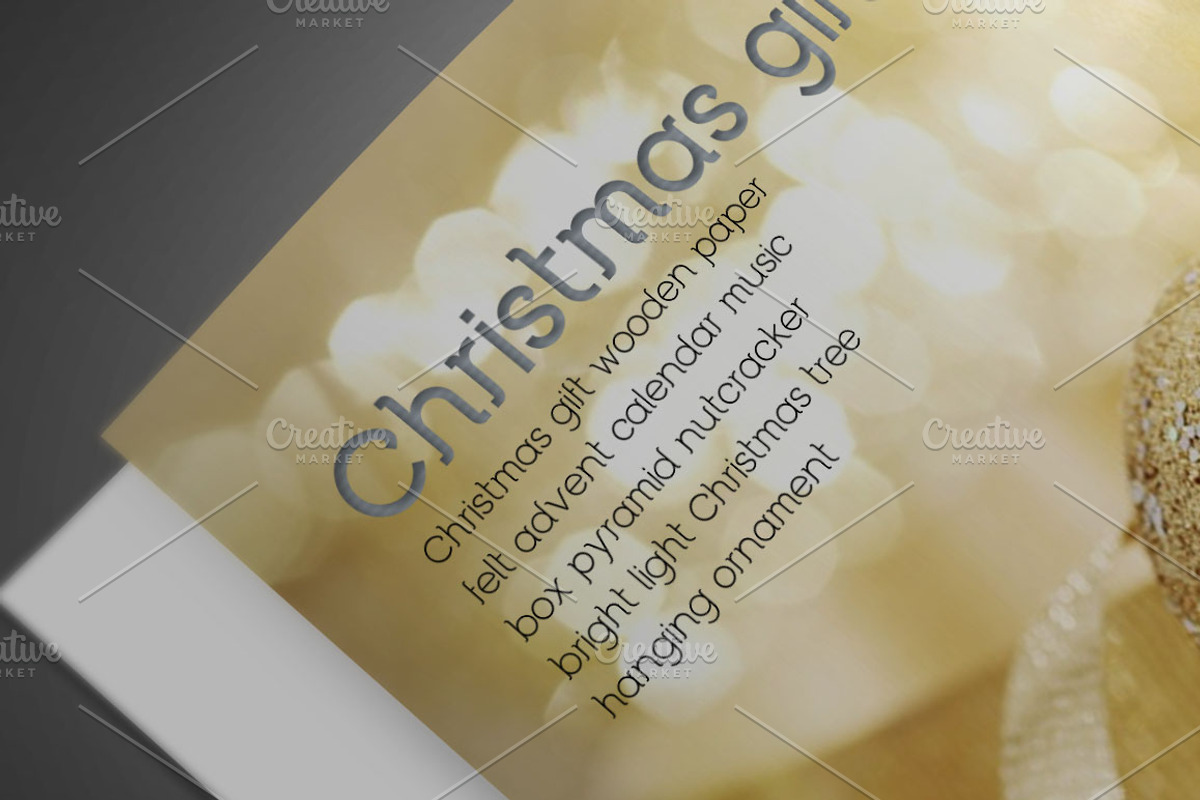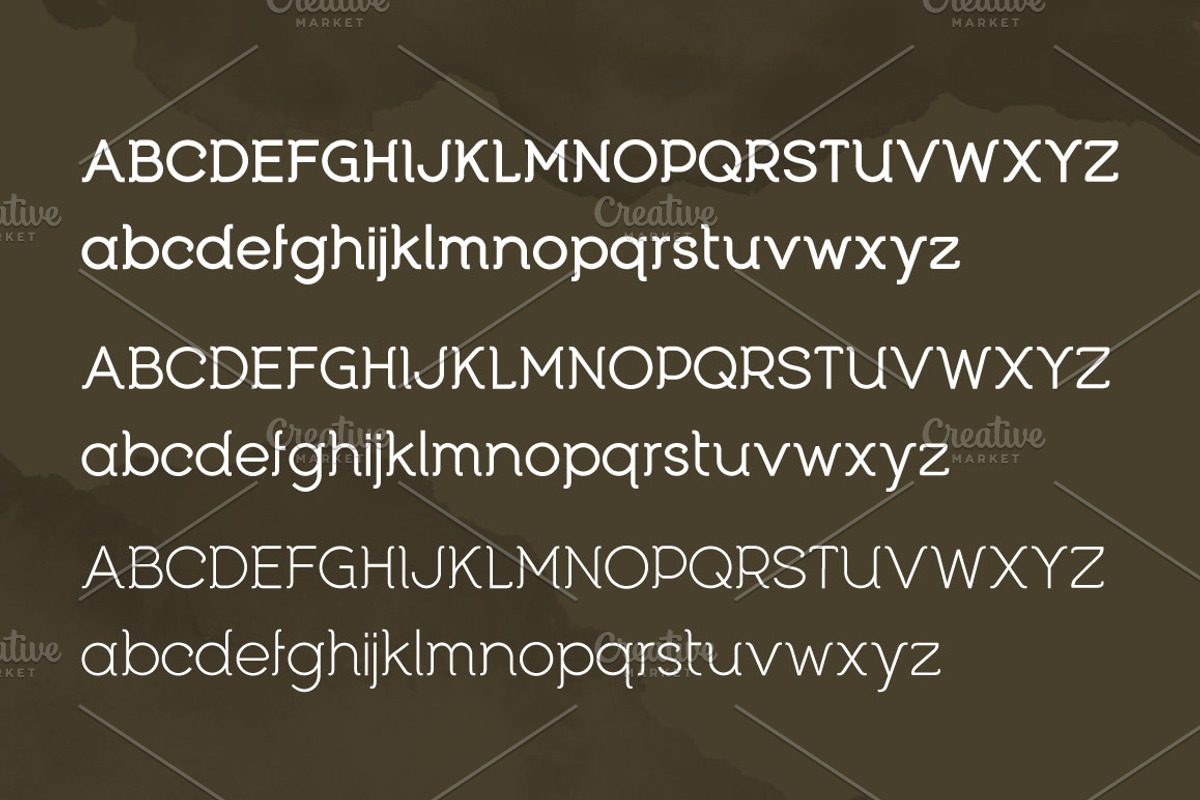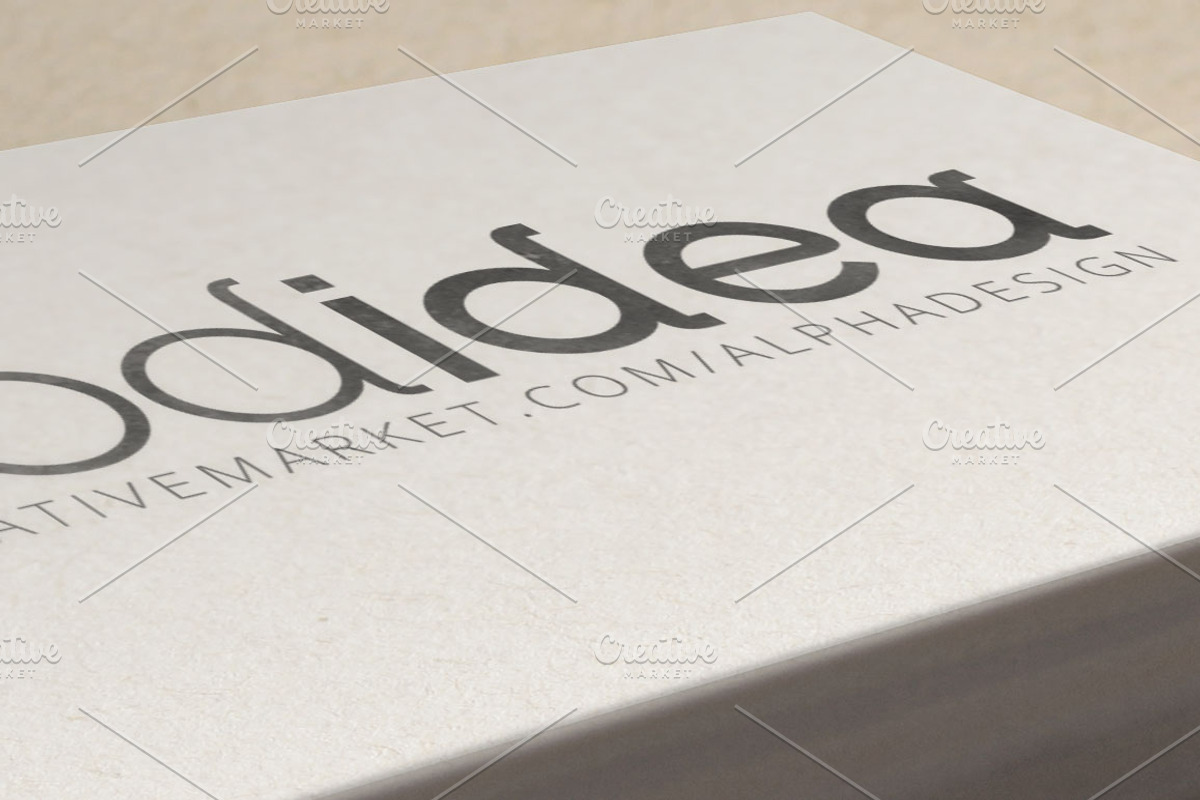
Begade OpenType Font
Begade OpenType Font by alphadesign is a font selected for branding, posters, packaging, typography.
- Begade included 220 glyphs, can be used for Logo, books, advertisements, etc.
Why Begade OpenType Font is worth a look
Begade OpenType Font by alphadesign fits naturally into Branding, posters, packaging, typography.